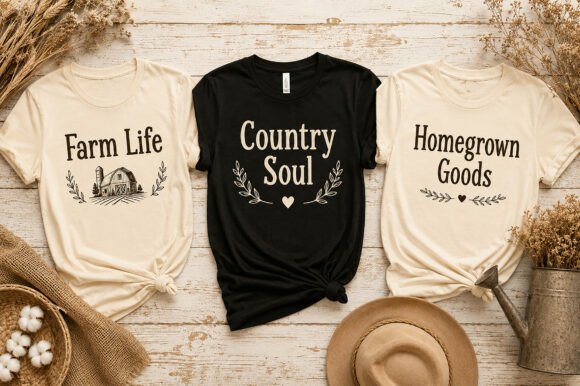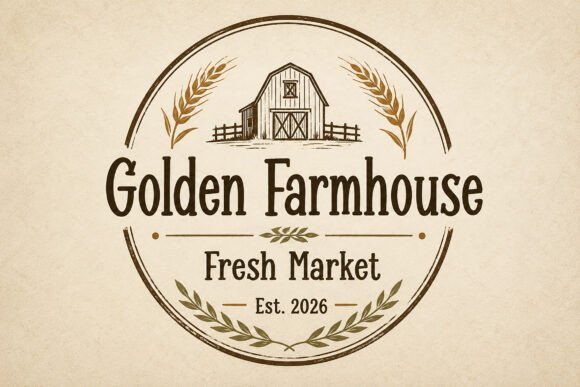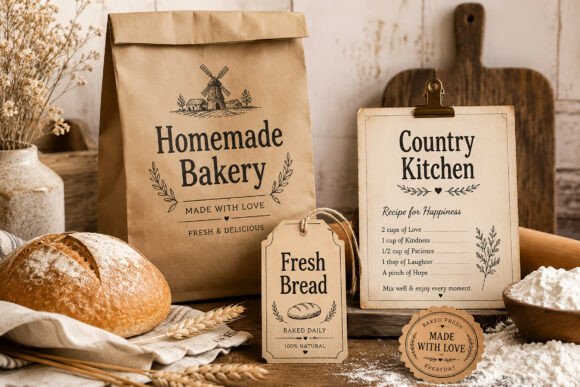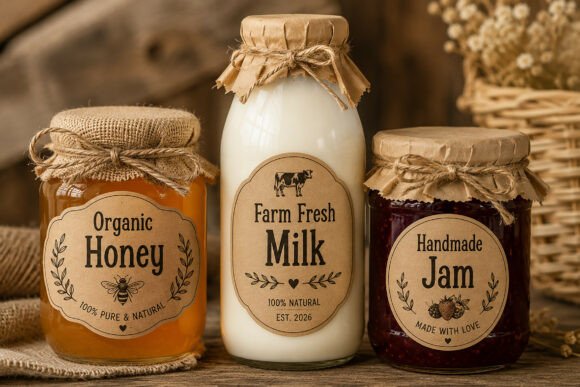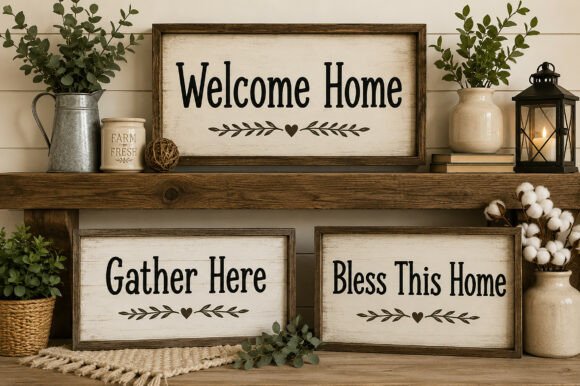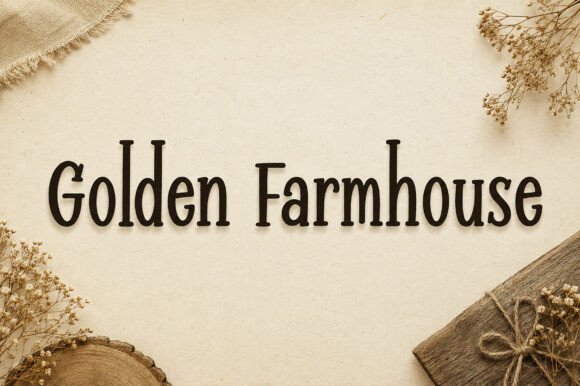
Introducing Golden Farmhouse: The Ultimate Vintage Serif Font for Rustic Charm
Are you a designer or crafter looking for a font that embodies the simplicity and allure of farmhouse aesthetics? Look no further than Golden Farmhouse, a beautiful vintage serif font that brings to life the warm, retro personality of handcrafted country-style typography. With its tall, graceful letterforms and gentle vintage curves, Golden Farmhouse is the perfect choice for rustic branding, enchanting display designs, and a wide range of creative projects.
The Inspiration Behind Golden Farmhouse
Golden Farmhouse is inspired by the classic typography of the countryside, where handcrafted signs and labels evoke a sense of nostalgia and homely comfort. The font’s design is rooted in the traditional craftsmanship of farmhouse aesthetics, where every detail is carefully considered to create a sense of warmth and authenticity. With Golden Farmhouse, you can bring this timeless charm to your designs, infusing them with a sense of age-old nostalgia and modern sophistication.
Key Features of Golden Farmhouse
So, what makes Golden Farmhouse so special? Here are just a few of the key features that set this font apart:
- Vintage serif design: Golden Farmhouse boasts a classic serif design, with tall, graceful letterforms that evoke the elegance of traditional typography.
- Gentle vintage curves: The font’s curves are carefully crafted to create a sense of softness and warmth, adding to its rustic charm.
- Handmade artistic style: Golden Farmhouse is expertly crafted to mimic the look and feel of handcrafted typography, giving it a unique, organic feel.
- Warm retro personality: The font’s warm, inviting personality is perfect for creating designs that feel cozy and welcoming.
Perfect for Rustic Branding and Display Designs
Golden Farmhouse is the perfect choice for designers and crafters looking to create rustic branding and display designs that stand out from the crowd. Whether you’re working on a packaging project, café branding, organic product labels, or house décor projects, this font is sure to bring a touch of homely comfort to your designs.
Here are just a few examples of how Golden Farmhouse can be used:
- Packaging design: Add a touch of rustic charm to your product packaging with Golden Farmhouse, perfect for food, beverage, or lifestyle brands.
- Café branding: Create a warm and inviting atmosphere for your café or restaurant with Golden Farmhouse, used for menus, signage, and marketing materials.
- Organic product labels: Give your organic products a natural, earthy feel with Golden Farmhouse, perfect for labeling products that promote a healthy lifestyle.
- House décor projects: Bring a touch of rustic charm to your home décor projects, such as wall art, signs, or DIY crafts.
Fashionable Attire, Wedding Invitations, and More
Golden Farmhouse is a versatile font that can be used for a wide range of creative projects beyond rustic branding and display designs. Here are a few more examples:
- Fashionable attire: Add a touch of vintage charm to your fashion brand with Golden Farmhouse, used for clothing labels, tags, or marketing materials.
- Wedding invitations: Create beautiful, rustic wedding invitations with Golden Farmhouse, perfect for couples looking for a unique and personalized design.
- Posters and signage: Use Golden Farmhouse for creating eye-catching posters and signage that grab attention and evoke a sense of nostalgia.
- Social media graphics: Bring a touch of rustic charm to your social media graphics, such as Facebook posts, Instagram stories, or Pinterest pins.
In conclusion, Golden Farmhouse is a beautiful vintage serif font that embodies the simplicity and allure of farmhouse aesthetics. With its tall, graceful letterforms, gentle vintage curves, and handmade artistic style, this font is perfect for rustic branding, enchanting display designs, and a wide range of creative projects. Whether you’re a designer or crafter, Golden Farmhouse is sure to bring a touch of homely comfort and timeless charm to your designs.